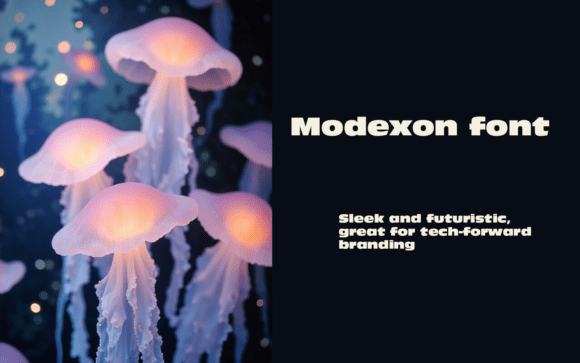
Introduction to Modexon Font Font
Fonts play a crucial role in design, and the Modexon Font font is a typeface that brings both character and versatility to any project. Whether you’re working on a branding project, a website, or a print design, the Modexon Font font offers a unique style that can elevate your work.
Modexon is the ultimate expression of modern clarity.
Its balanced geometry and minimalist design deliver both elegance and utility—ideal for digital interfaces, branding systems, and forward-thinking design projects Whether you’re building a cutting-edge app or refining your brand’s voice, this font brings precision and confidence to every character.
Key Features of Modexon Font Font
Why Choose Modexon Font Font?
The Modexon Font font is more than just a typeface – it’s a design tool that helps you communicate your message with style and clarity. Its unique character set and versatile design make it suitable for a wide range of applications, from elegant invitations to bold headlines.
With its carefully crafted letterforms and balanced proportions, the Modexon Font font ensures readability and visual appeal across all mediums.
What makes Modexon Font font special?
The Modexon Font font stands out with its unique design, exceptional readability, and versatility across various design applications.